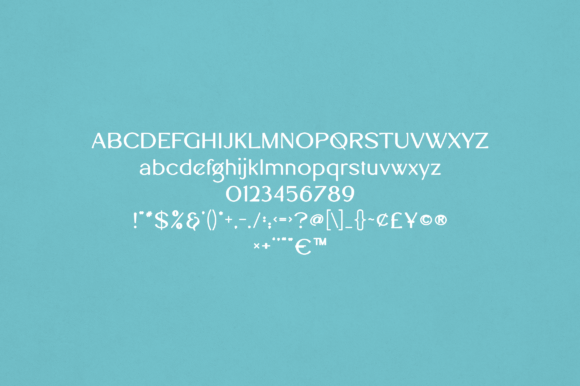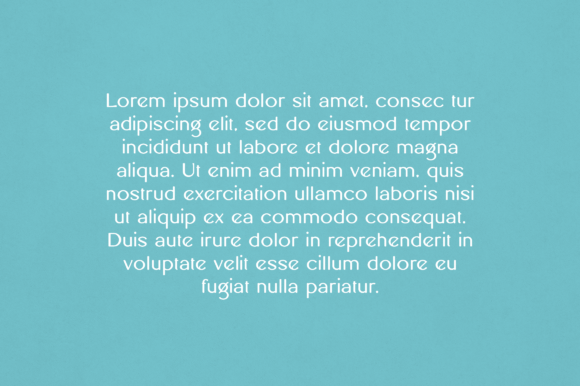
Introduction to Micaela Font
As designers, we’ve all been there – staring at a blank canvas, trying to bring our creative vision to life. The perfect font can make all the difference, elevating our work from good to great. And that’s exactly what Micaela Font is – a game-changer for any project that requires a touch of elegance and sophistication.
Whether you’re working on a branding project, creating home-ware designs, or developing product packaging, Micaela Font is the perfect design resource to add that extra oomph to your work. This high-quality font is not only versatile but also easy to use, making it a valuable addition to any designer’s toolkit. With a transparent background, you can overlay it on any background image, giving your designs a professional and polished look.
Key Features of Micaela Font
- Comes in a transparent background option, allowing for seamless integration with various design elements.
- Features a high-resolution design, suitable for use in print and digital applications.
- Characterized by its modern and minimalist aesthetic, making it a great fit for a wide range of creative projects.
Honest Review: Micaela Font
I recently came across the Micaela Font, and I must say it’s a great addition to any designer’s toolkit. This high-quality font is perfect for creative projects where a clean and elegant look is desired.
Here are some things that work well about the Micaela Font:
- Its transparent background makes it easy to overlay on any image or design without worrying about a distracting background.
- The font is highly customizable, allowing you to easily adjust the size, color, and style to fit your design needs.
While the Micaela Font is a great resource, there are a few limitations to keep in mind:
- The font may not be suitable for large-scale commercial projects where high-end typography is required.
Overall, the Micaela Font is a great design resource that’s perfect for smaller projects or personal designs. Its high quality and versatility make it a great addition to any designer’s toolbox.
Micaela Font
Tips for Getting the Most Out of Micaela Font
1. Experiment with different font sizes and colors to create visual interest.
2. Use Micaela Font in combination with other design elements to create a cohesive look.
3. Take advantage of the transparent background to layer Micaela Font over images or other design elements.
Micaela Font is perfect for use in social media graphics, presentations, and marketing materials. Its high-quality design makes it an excellent choice for any creative project.
Alternatives to Micaela Font
A high-quality, elegant script font perfect for creative projects that require a touch of sophistication. It’s ideal for wedding invitations, logo designs, or any project where a delicate, handwritten feel is desired.
Compared to Micaela Font, Alex Brush Font offers a more refined and luxurious look, making it suitable for high-end design projects. It’s also a great option for designers who want a font with a more subtle, understated feel.
A modern, cursive font designed for creative projects that require a fun and energetic vibe. It’s perfect for social media graphics, blog posts, or any design where a playful, handwritten feel is needed.
Compared to Micaela Font, Great Vibes Font offers a more casual and relaxed look, making it suitable for design projects that require a friendly and approachable tone. It’s also a great option for designers who want a font with a more dynamic and expressive feel.